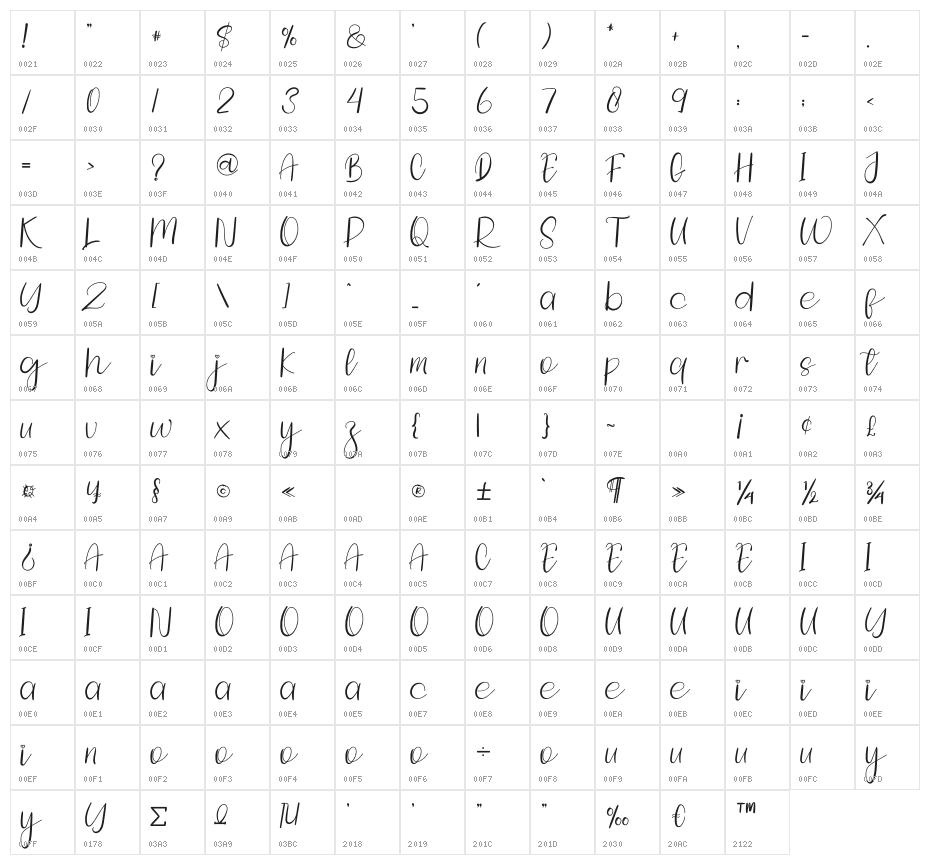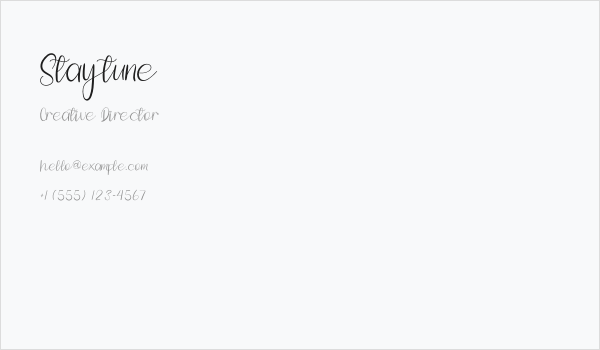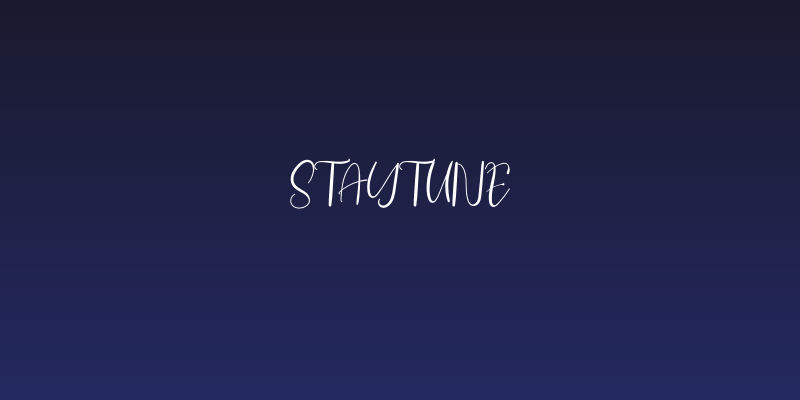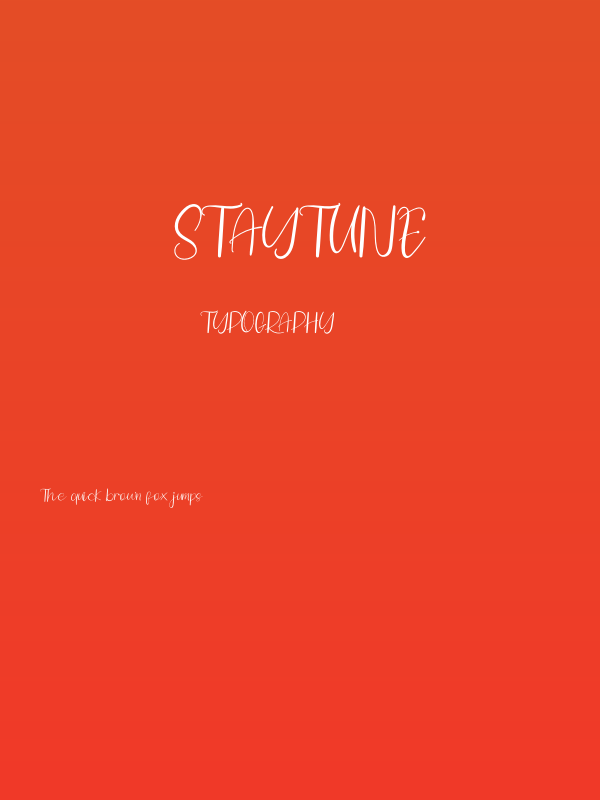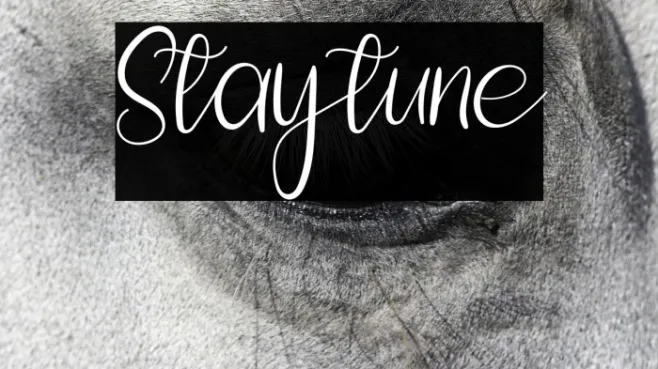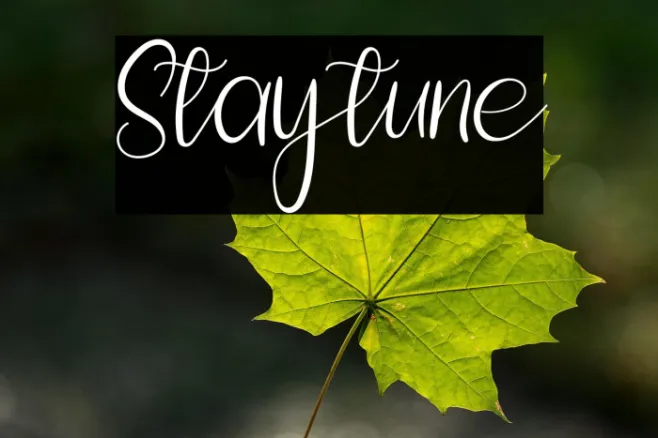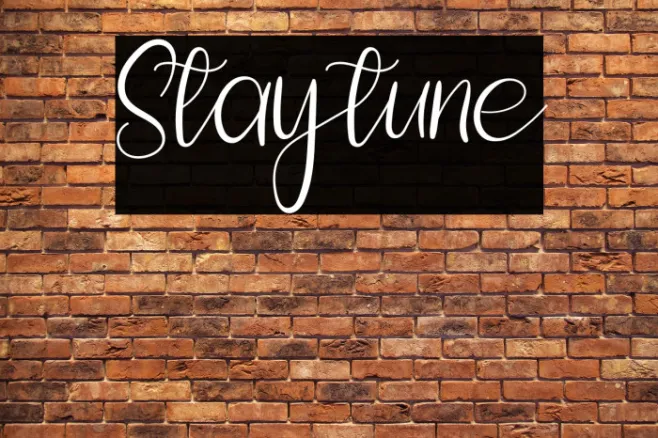
Staytune Font
Staytune Description
This font features a playful and elegant script style with a handwritten appearance. The letters are characterized by smooth, flowing lines and a slight slant, giving it a dynamic and lively feel. The uppercase letters are bold and prominent, while the lowercase letters maintain a consistent flow with charming loops and curves. The numerals are clear and easy to read, complementing the overall style. Special characters are creatively integrated, adding to the font's versatility. This font is perfect for projects that require a personal touch or a sense of whimsy.